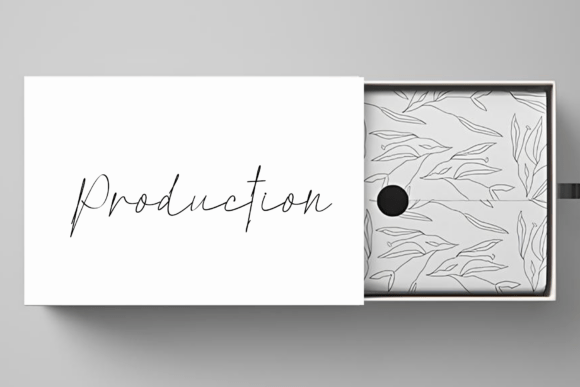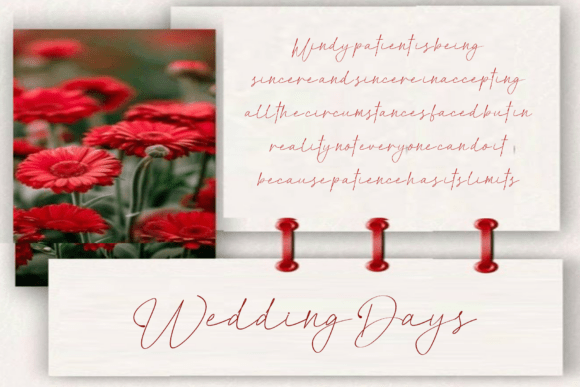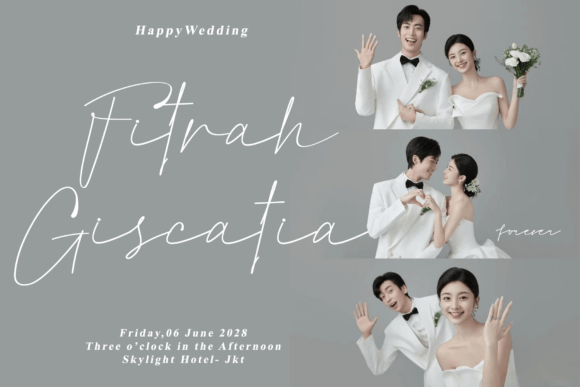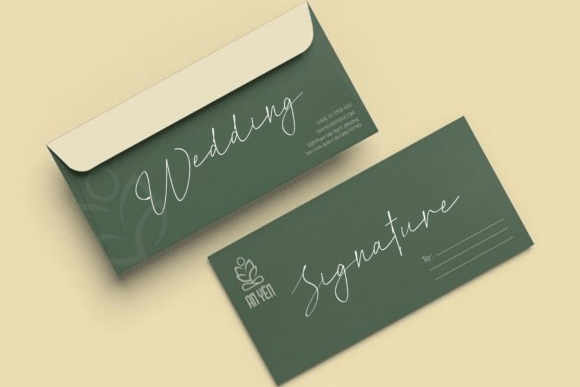
Cant Vintage Font: A Timeless Handwritten Font for Your Creative Projects
Are you a designer or crafter looking for a font that can add a touch of elegance and sophistication to your creative projects? Look no further than Cant Vintage Font. This lovely and timeless handwritten font is the perfect choice for creating eye-catching logos, branding, and quotes that will leave a lasting impression on your audience.
What Makes Cant Vintage Font So Special?
Cant Vintage Font is a unique and beautiful font that stands out from the crowd. Every letter has a distinctive and elegant touch that will make your design come alive. The font’s handwritten style gives it a personal and organic feel that is perfect for creating a connection with your audience.
One of the key features that sets Cant Vintage Font apart is its versatility. It can be used for a wide range of creative projects, from logos and branding to quotes and social media graphics. The font’s timeless style ensures that it will never go out of fashion, making it a great investment for designers and crafters who want to create high-quality designs that will stand the test of time.
Why Choose Cant Vintage Font for Your Design Projects?
There are many reasons why Cant Vintage Font is the perfect choice for your design projects. Here are just a few:
- Unique and Beautiful Letters: Every letter in Cant Vintage Font has a unique and beautiful touch that will add a touch of elegance to your designs.
- Timeless Style: The font’s handwritten style is timeless and will never go out of fashion, making it a great investment for designers and crafters.
- Versatile: Cant Vintage Font can be used for a wide range of creative projects, from logos and branding to quotes and social media graphics.
Tips for Getting the Most Out of Cant Vintage Font
Here are a few tips for getting the most out of Cant Vintage Font:
- Use it with a Simple Background: Cant Vintage Font looks best with a simple background that doesn’t distract from the text.
- Experiment with Different Colors: The font looks great in a variety of colors, so don’t be afraid to experiment and find the one that works best for your design.
- Use it for Headlines and Titles: Cant Vintage Font is perfect for headlines and titles, where its elegant and sophisticated style can really shine.
Cant Vintage Font is a lovely and timeless handwritten font that is perfect for creating eye-catching logos, branding, and quotes. Its unique and beautiful letters, timeless style, and versatility make it a great choice for designers and crafters who want to create high-quality designs that will stand the test of time. With its ease of use and flexibility, Cant Vintage Font is a great addition to any designer’s toolkit.